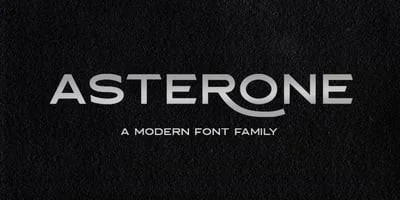
Asterone Font
Asterone Font is perfect for space agency branding, astronomy websites, sci-fi movie titles, planetarium displays, NASA-inspired designs, cosmic event posters, space exploration documentaries, and astronomical observatory signage. This celestial typeface excels in rocket launch campaigns, space technology presentations, astrology apps, and futuristic space station interfaces.
What makes Asterone Font exciting is its cosmic elegance that captures the infinite beauty and mystery of outer space. The font features stellar letterforms, astronomical precision, and orbital spacing that evokes the grandeur of galaxies and star systems. Its otherworldly character and scientific sophistication make every word feel like a journey through the cosmos.
Asterone Font family includes multiple galactic styles: Regular, Bold, Light, Condensed, Extended, and Stellar variations. Each style maintains the font's signature astronomical character while providing designers with comprehensive options for creating space-themed visual identities and interstellar typography that resonates with science enthusiasts.
Space industry professionals choose Asterone Font for projects requiring scientific credibility and cosmic appeal. The font's versatility makes it suitable for both educational astronomy materials and commercial space ventures, ensuring stellar results across digital platforms, print materials, and environmental installations.